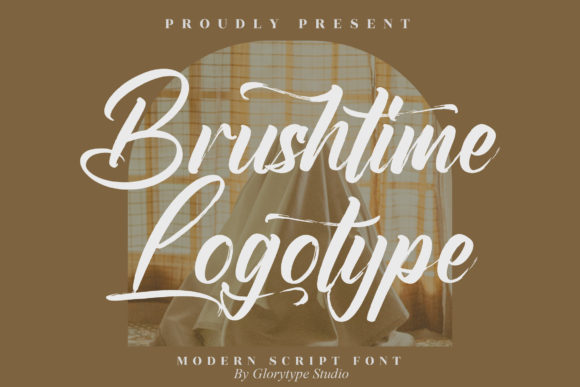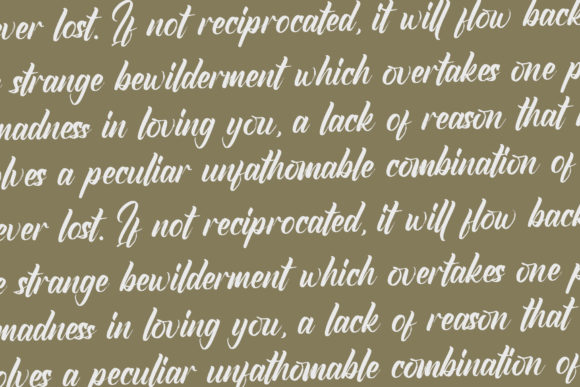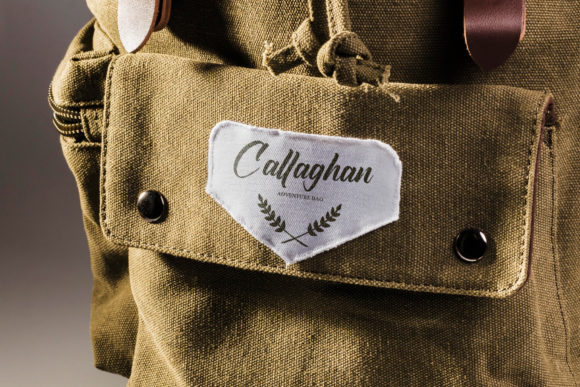
About Brushtime Logotype Font
Brushtime Logotype is an elegant script font with a contemporary atmosphere and impeccable form, inspired by timeless classic calligraphy.